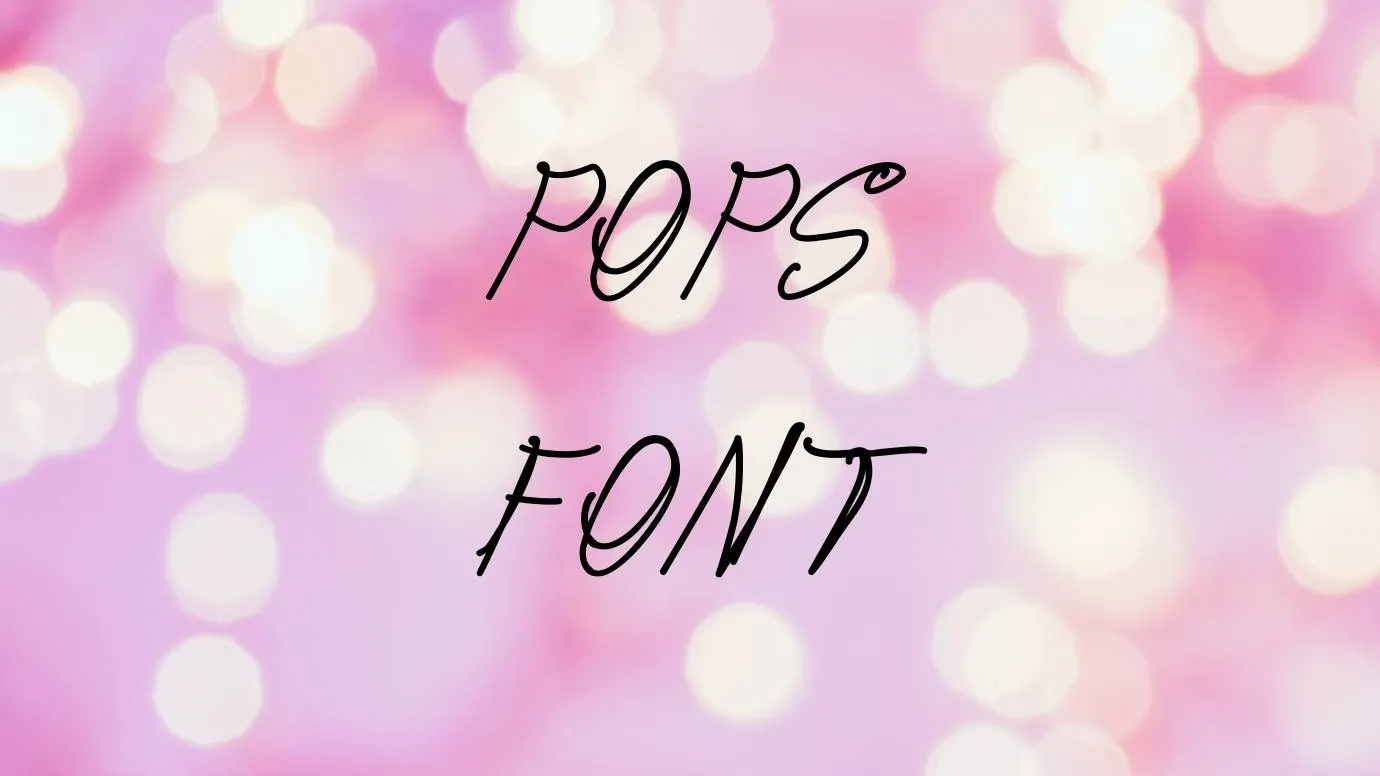
Pops Font Family is a handwritten typeface that was initially designed by smatras. This marvelous typeface has readable hand-drawn characters that increase the uniqueness and legibility of your projects.
Pops Font